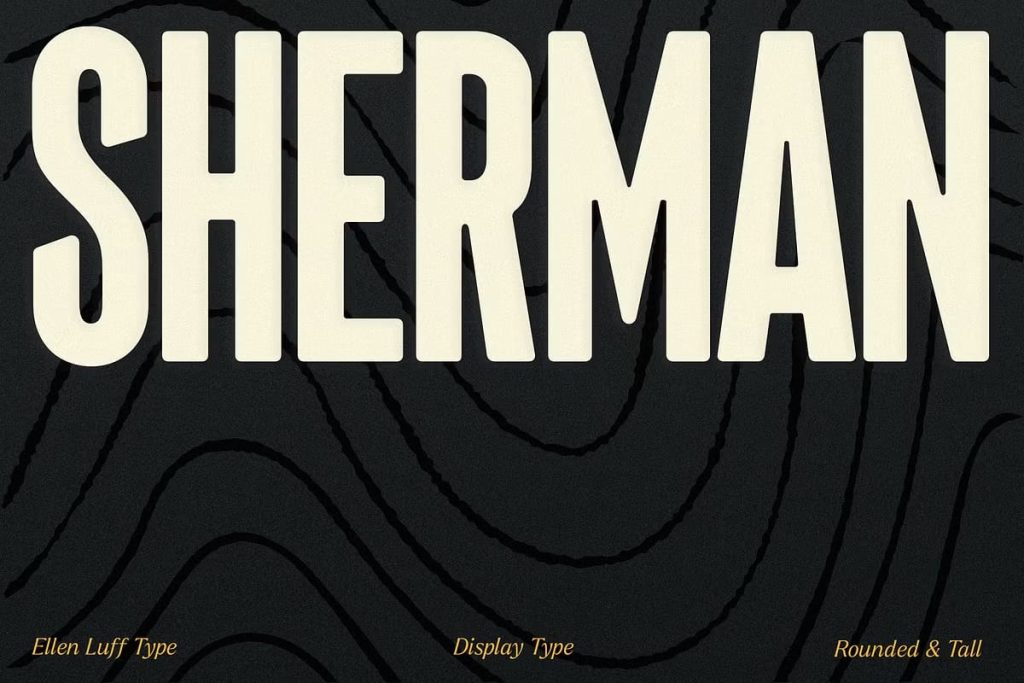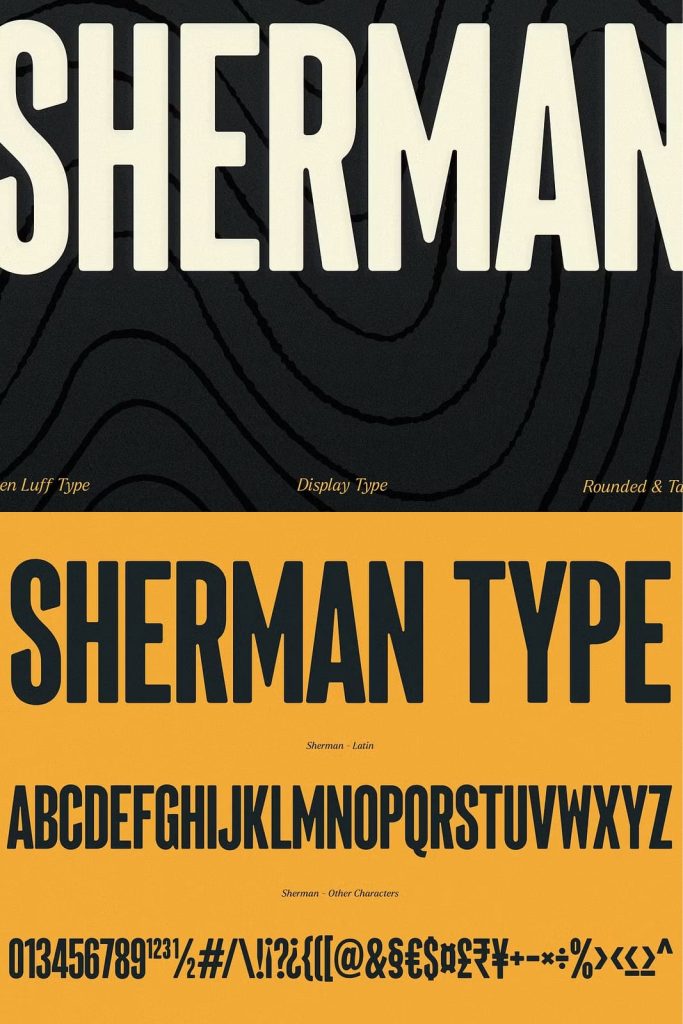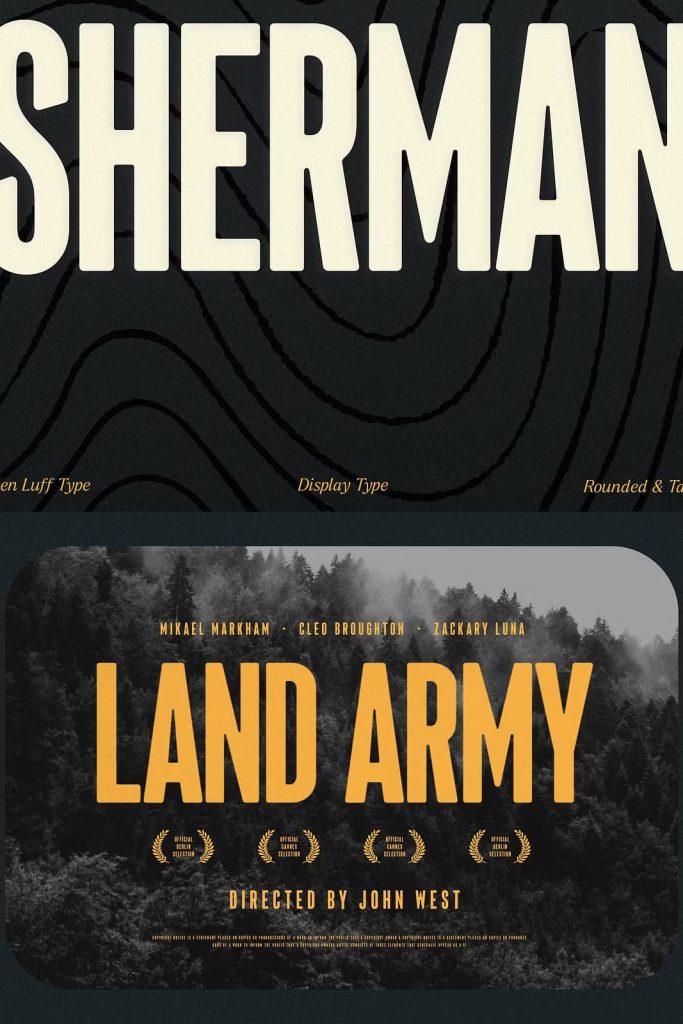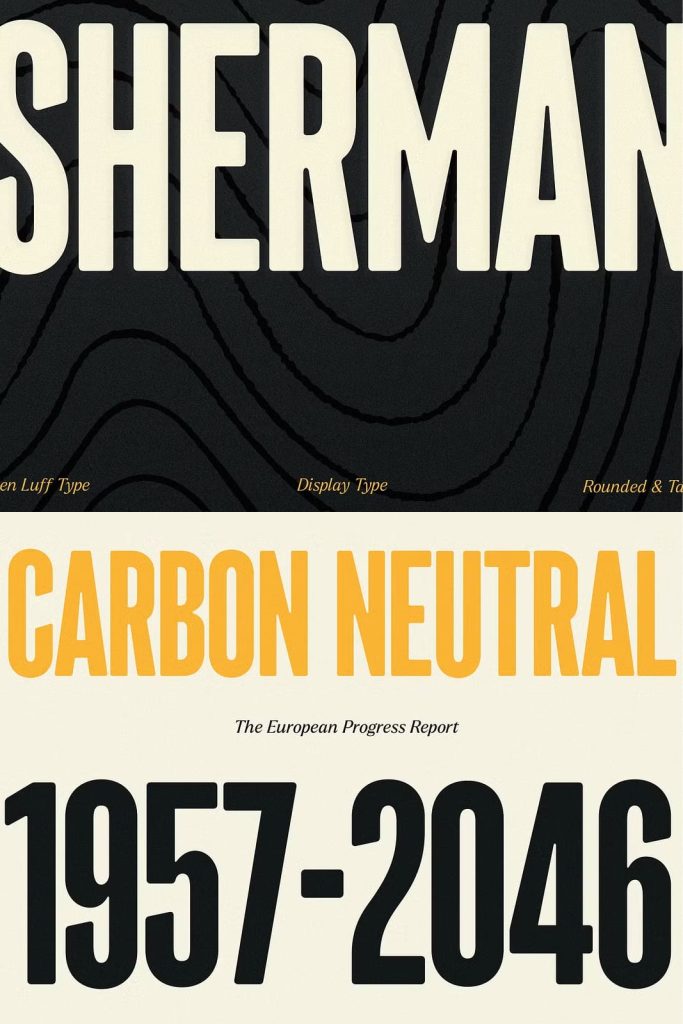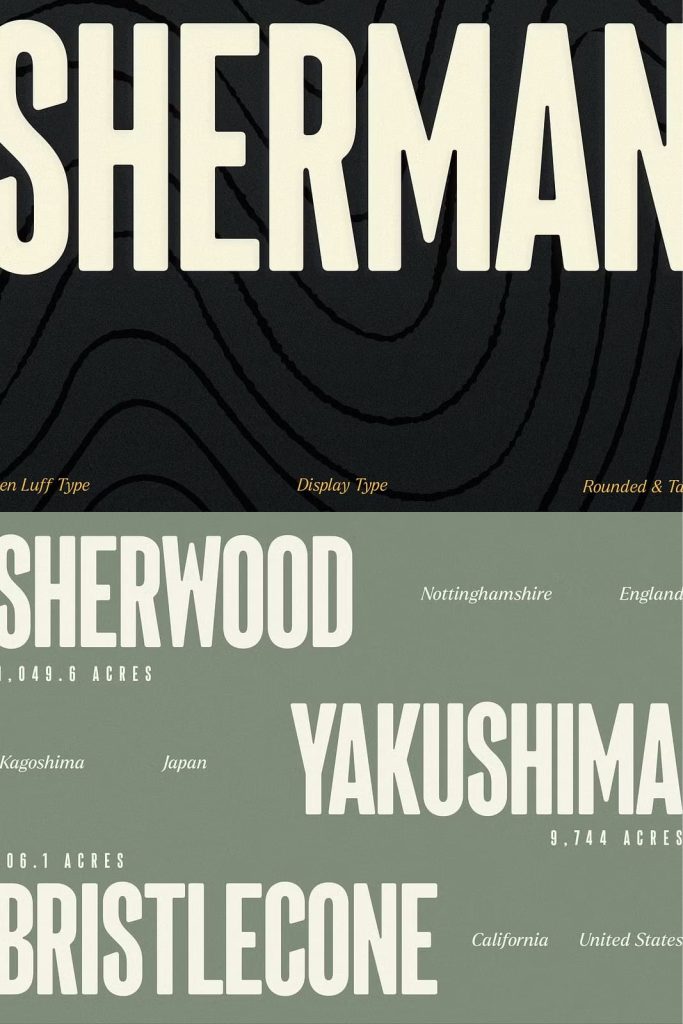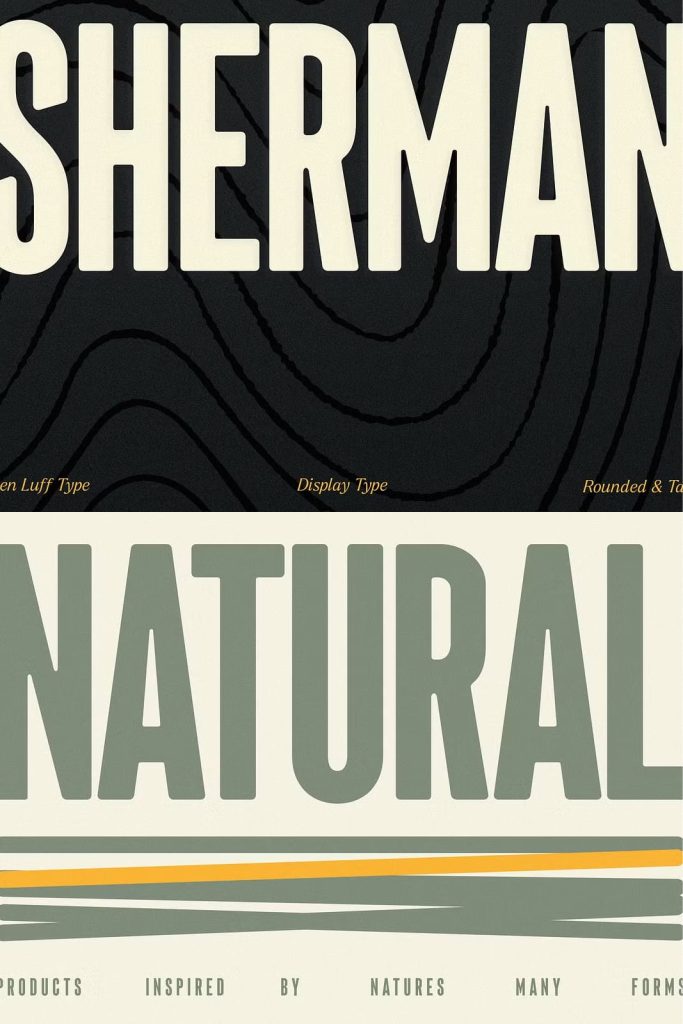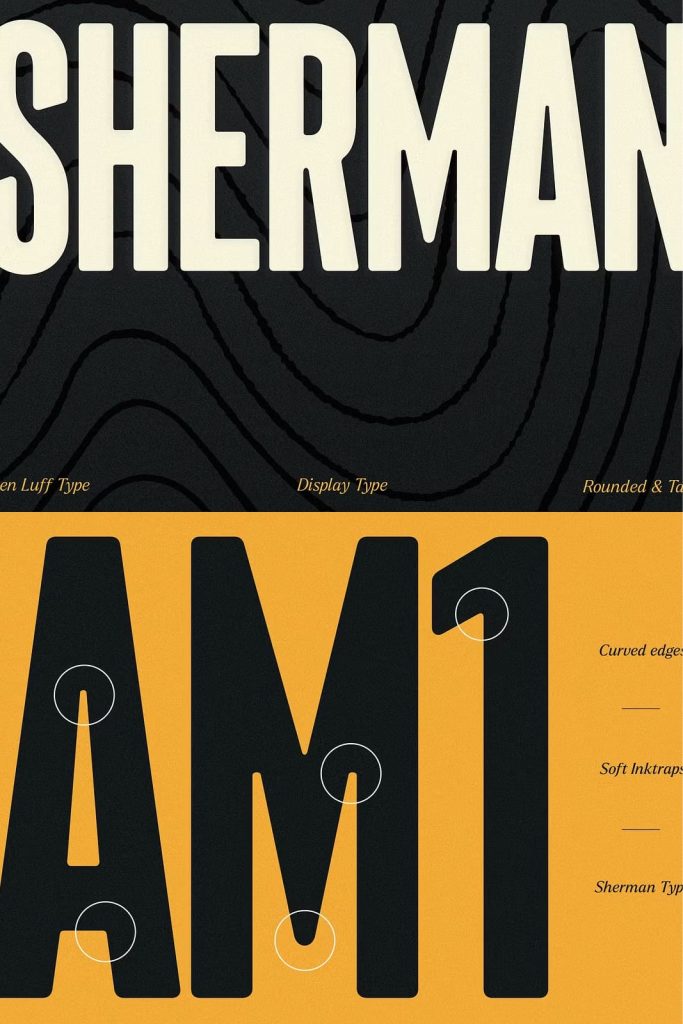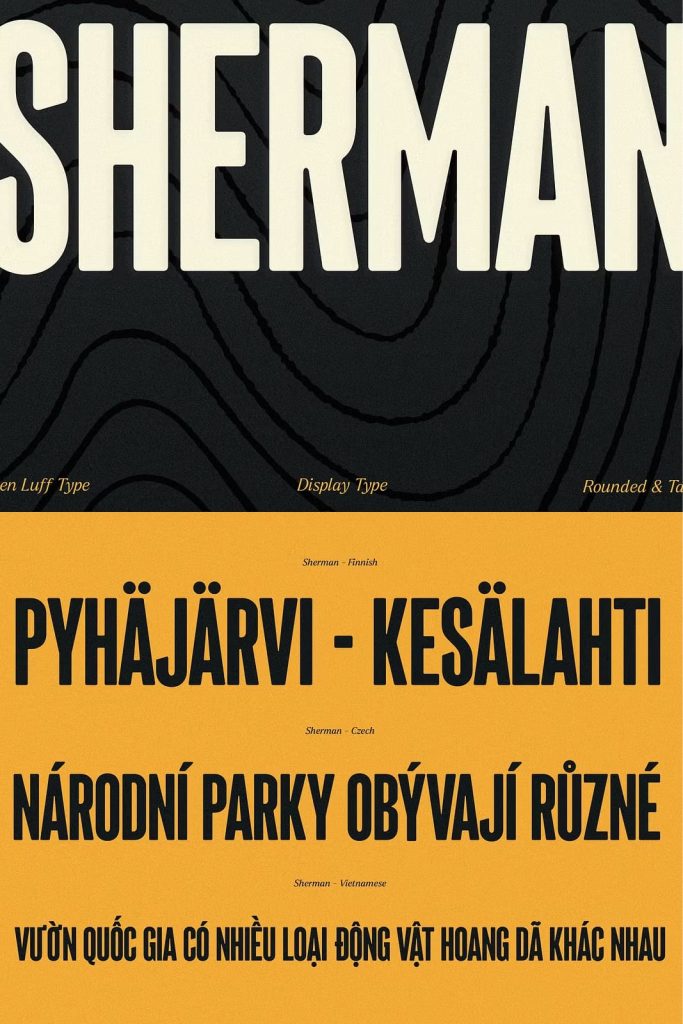
Sherman is soft yet assertive, a gentle giant in the world of Typefaces. Drawn to give headlines a confident and imposing base – while still feeling warm and friendly.
Sherman is brings its own personality to the world of tall typefaces, with sleek slanted terminals and optical adjustments to balance big away from heavy.
Sherman supports many latin languages (including Vietnamese) and can handle all European languages. It is an all caps font, that performs best at large sizes. It’s ideal for headlines, titles, signage, branding and strong designs that require a big impact. Its rounded ink traps and softened edges make it great for use in print or pixels.